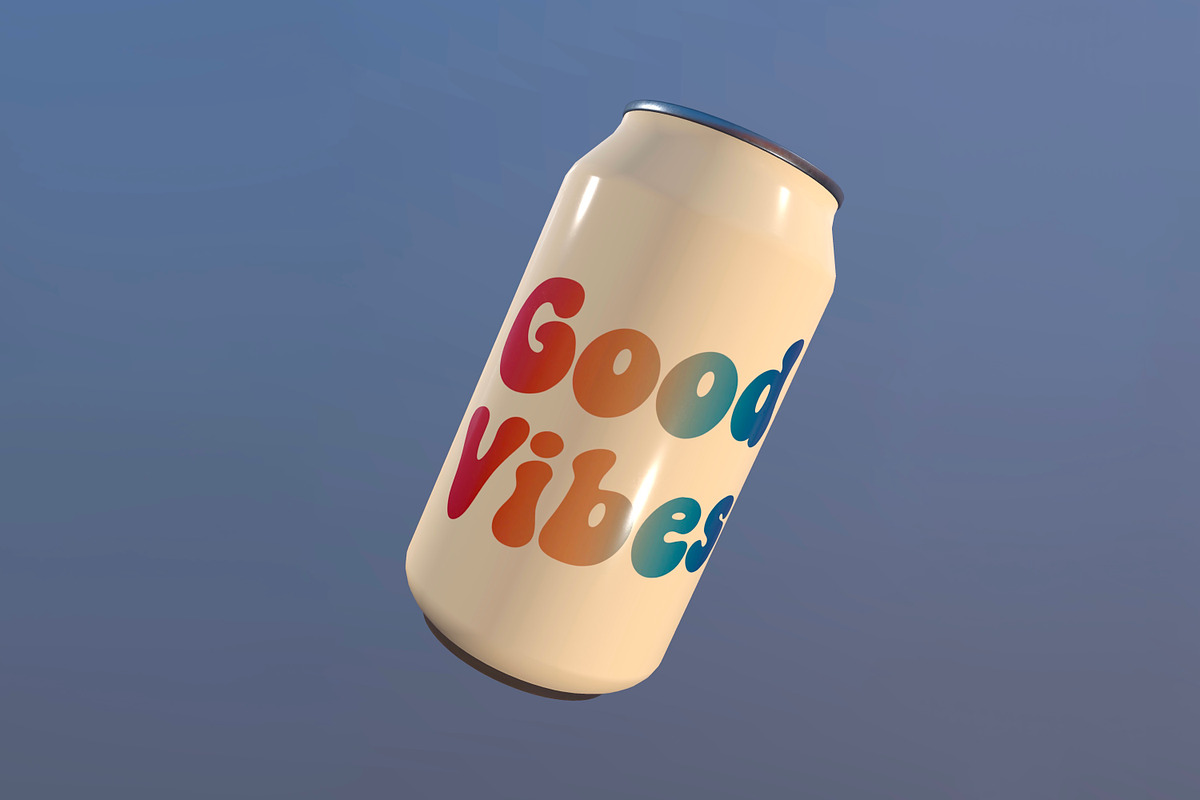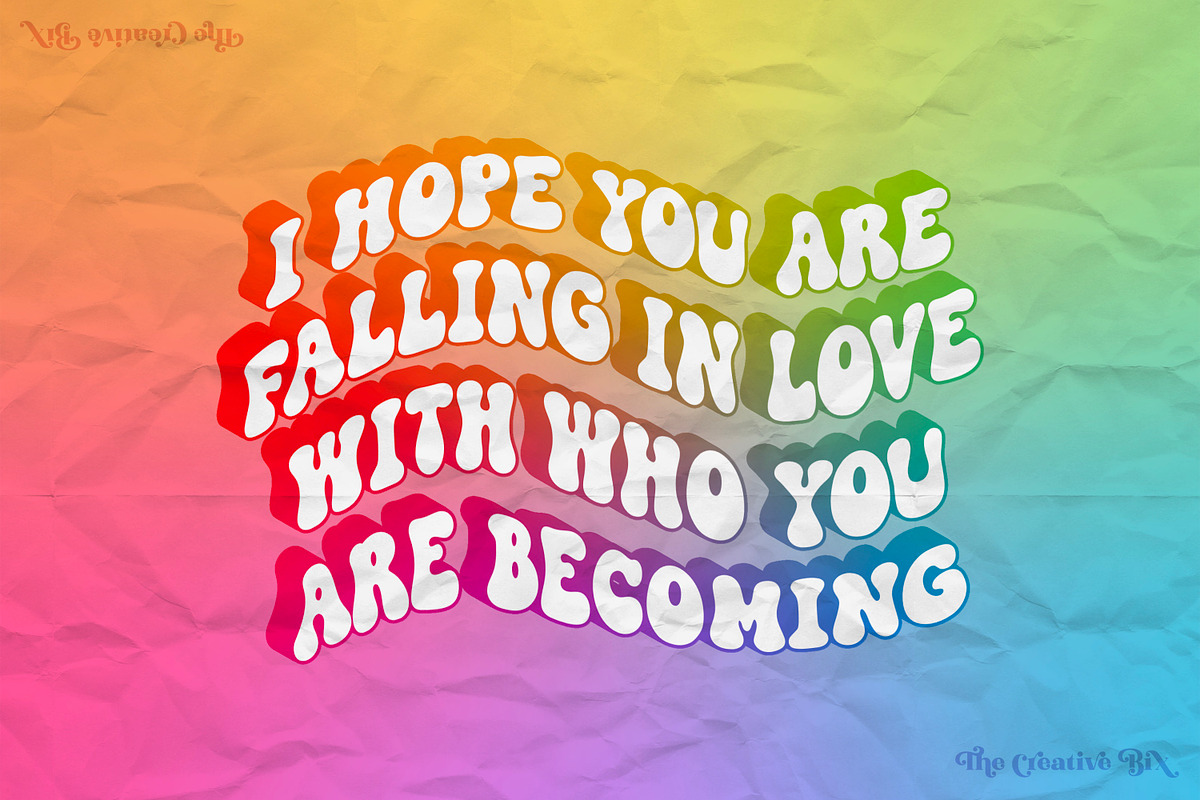
Lava Lamp Font
Lava Lamp is a retro, groovy font perfect for branding, posters, t-shirts, stickers, wall art, and any design you can think of. Masterfully designed to become a true favorite, this font has the potential to bring each of your creative ideas to the highest level.